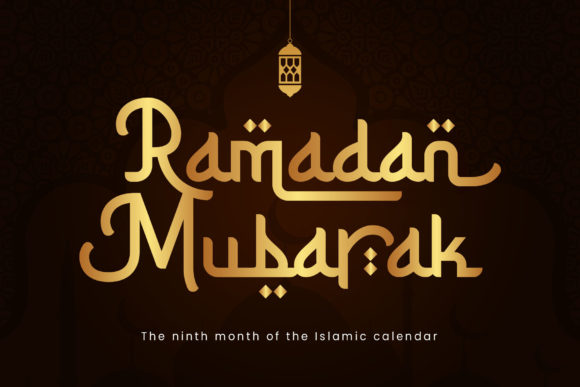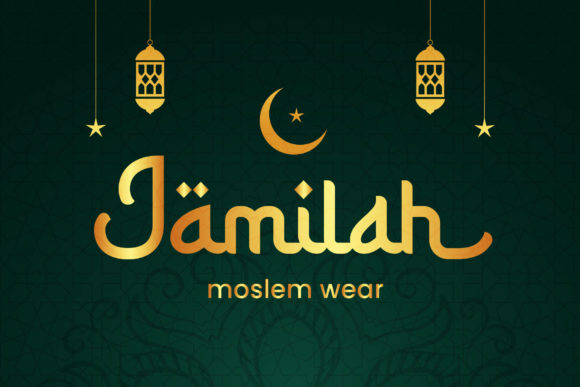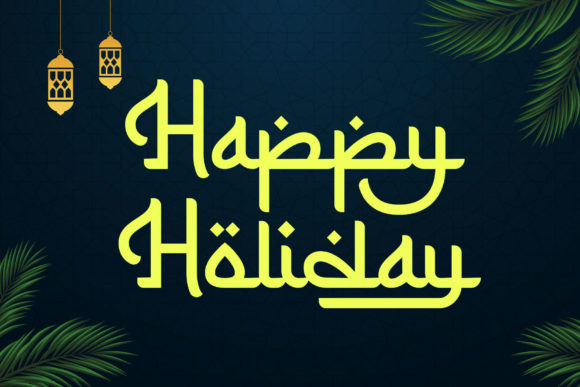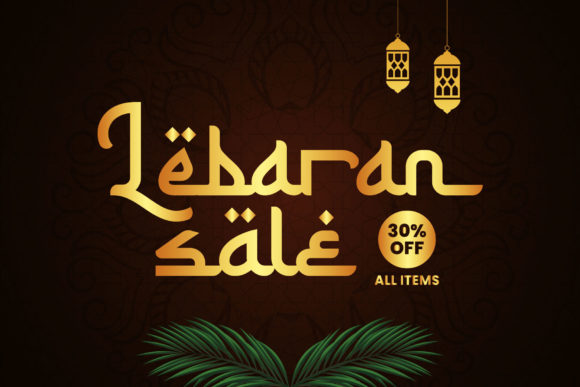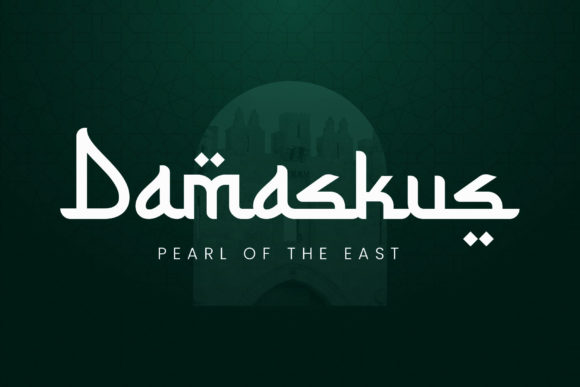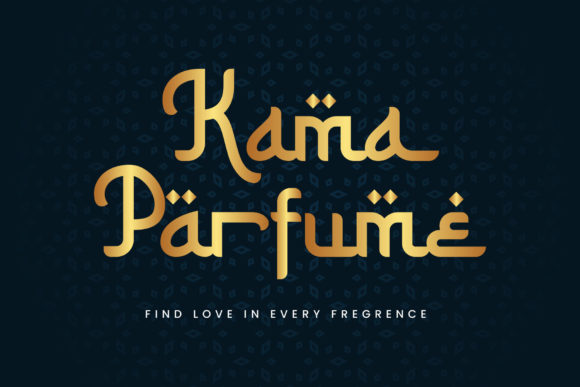
Discover the Elegance of Almalik Font: A Modern Arabic-Inspired Display Font
Have you ever been in the middle of a design project, and suddenly, you realize that the font you’ve been using just isn’t cutting it? You’re not alone! I recall working on a branding project for a Middle Eastern restaurant, and I was struggling to find a font that captured the essence of the region’s rich culture. That’s when I stumbled upon Almalik Font, an Arabic-style display font that instantly elevated my design game.
What Makes Almalik Font Special?
Almalik Font is a stunning example of modern typography, blending traditional Arabic letters with Latin typography. Its monoline shape and dynamic swashes give it a unique, elegant feel that’s perfect for a variety of design projects. Here are some of the key features that make Almalik Font stand out:
• ✨ Arabic-style display font with a modern twist
• ✅ Monoline shape for a sleek, contemporary look
• ✅ Dynamic swashes to add a touch of elegance
• ✨ The font’s versatility – it’s perfect for fashion, food, packaging, labels, logos, and more!
• ✅ The range of characters and swashes makes it easy to create unique designs
• ✅ The font’s readability is excellent, even at smaller sizes
• ⚠️ Some users might find the font’s style too ornate for certain projects
• 🤔 Limited support for non-Latin scripts (but that’s not surprising, given its Arabic-inspired design)
Almalik Font was designed with the goal of creating a modern, Arabic-inspired display font that would capture the essence of Middle Eastern culture. The designer’s inspiration came from the region’s rich history, architecture, and calligraphy. The result is a font that’s both elegant and versatile, perfect for a wide range of design projects.
Q: Is Almalik Font suitable for body text?
A: While Almalik Font is beautiful, it’s primarily designed for display purposes. It’s recommended to use it for headings, titles, or quotes, rather than body text.